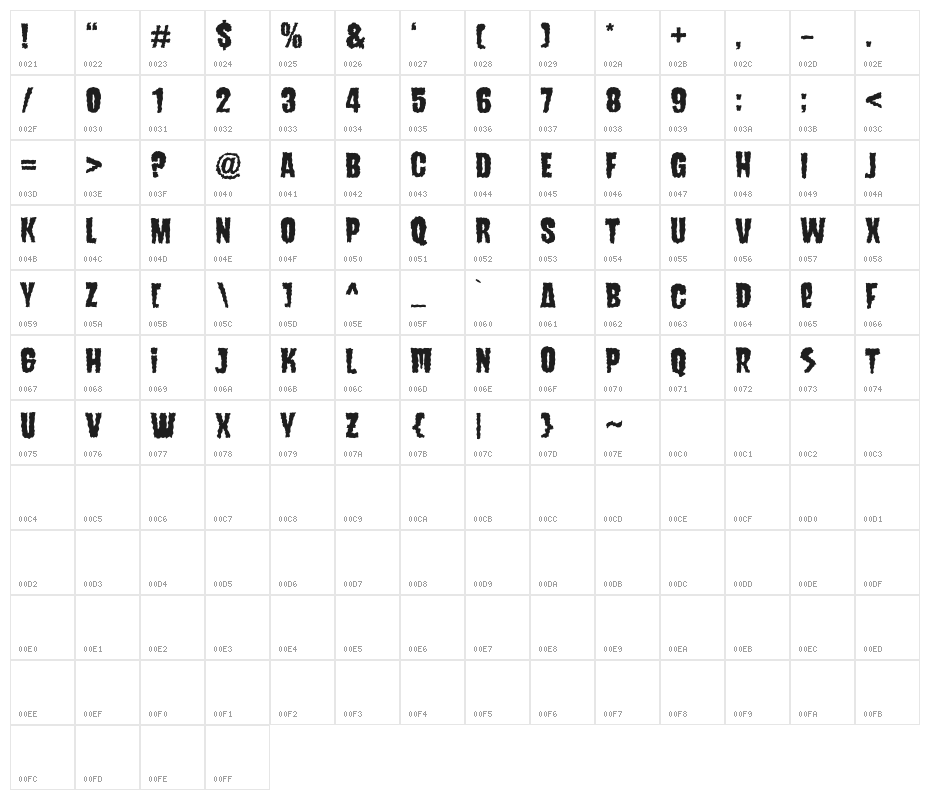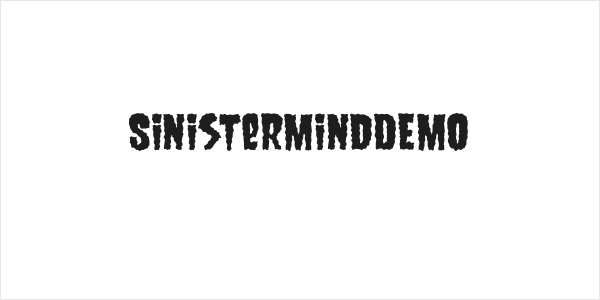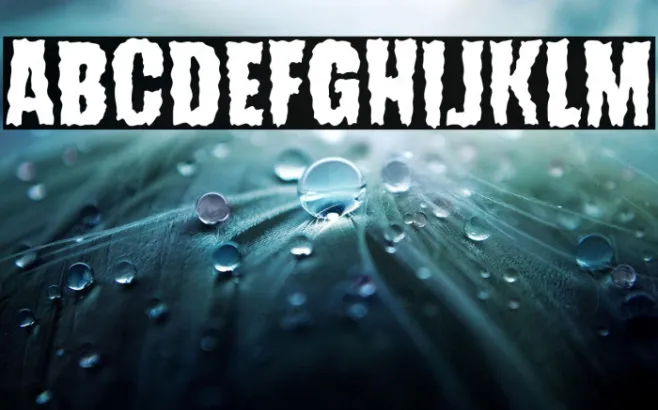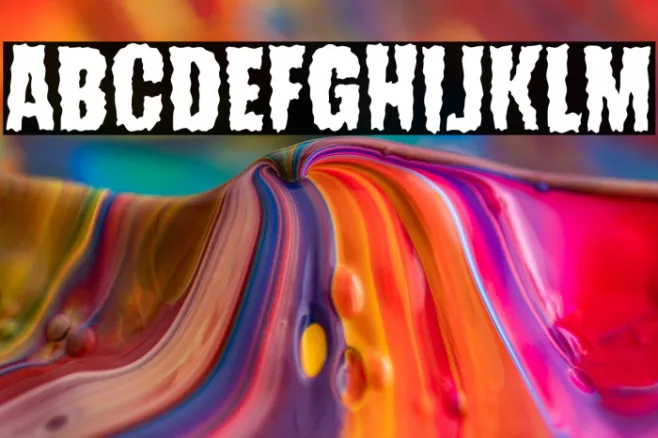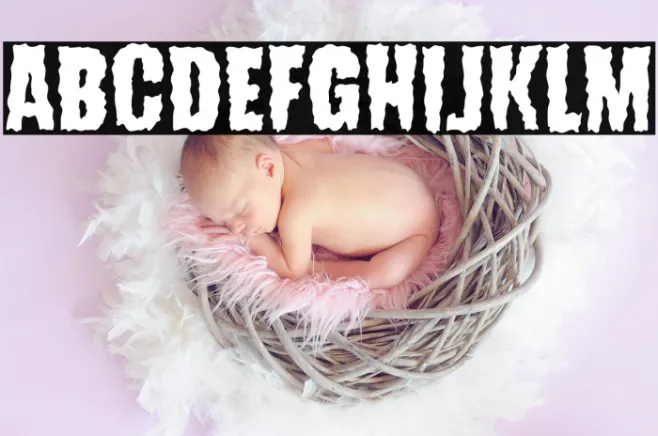
SinisterMindDEMO Font
SinisterMindDEMO Description
This font features a bold and jagged design, reminiscent of horror and thriller themes. The characters have an irregular, distressed appearance, giving them a hand-crafted look. The edges are rough and uneven, creating a sense of chaos and unpredictability. This style is perfect for creating an eerie or unsettling atmosphere, making it ideal for Halloween-themed projects or anything requiring a spooky aesthetic. The uppercase and lowercase letters maintain a consistent style, with numbers and special characters following the same rugged design.
| Use Case | Headlines, Posters, Logos |
| Proposed Projects | Ideal for Halloween invitations, horror movie posters, spooky event flyers, and themed merchandise. |